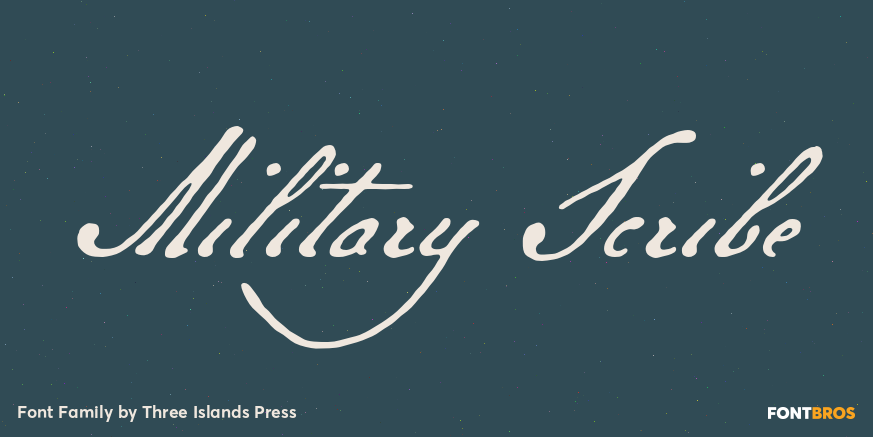
Military Scribe
About Military Scribe
The 10th Regiment of Foot is a British military unit raised more than three centuries ago?and perhaps most famous in the U.S. for seeing action on American soil during the Revolutionary War in the Battles of Lexington and Concord, and the Battle of Bunker…